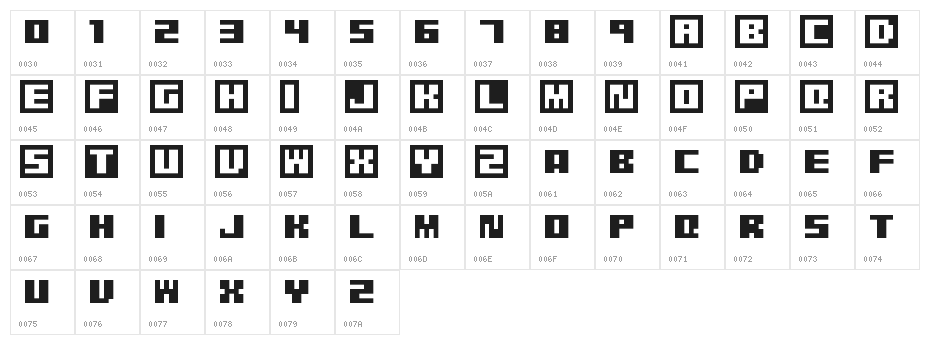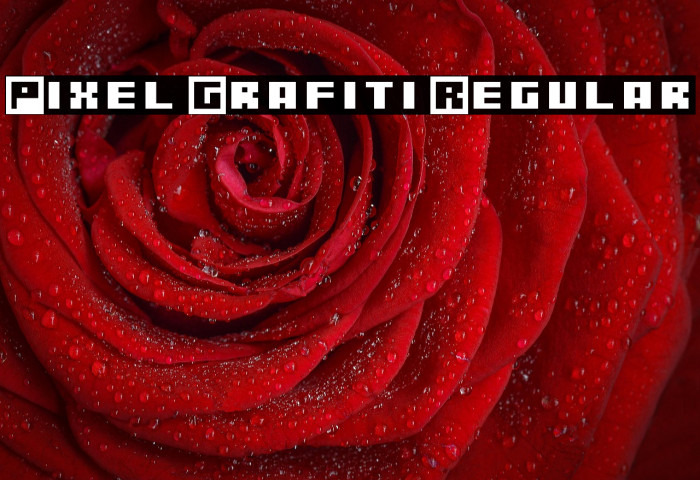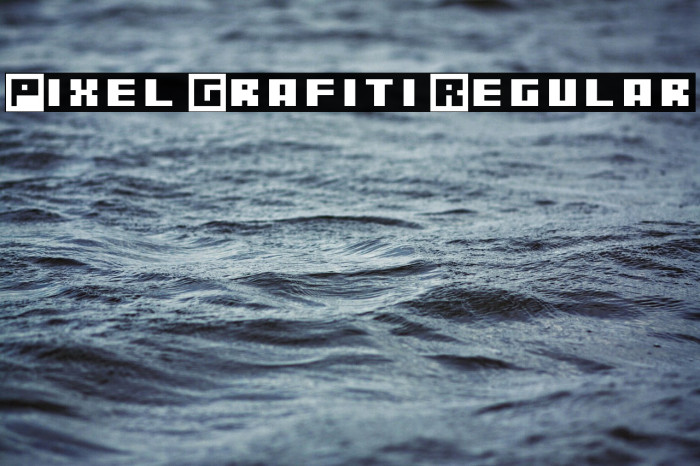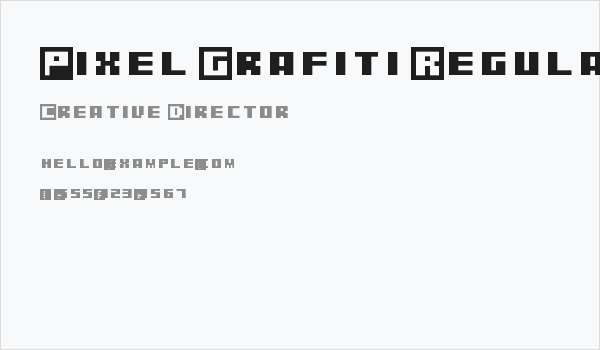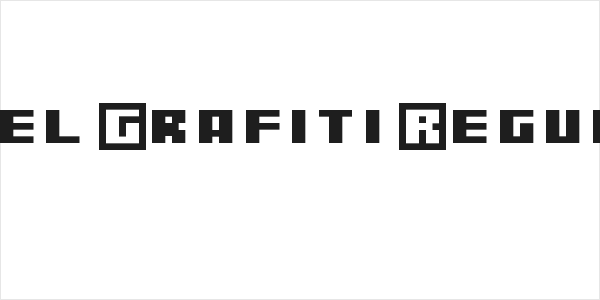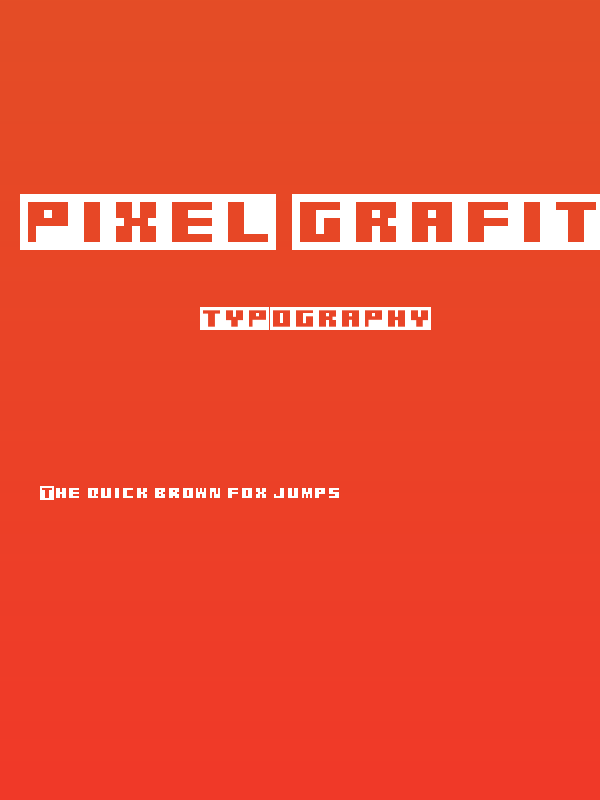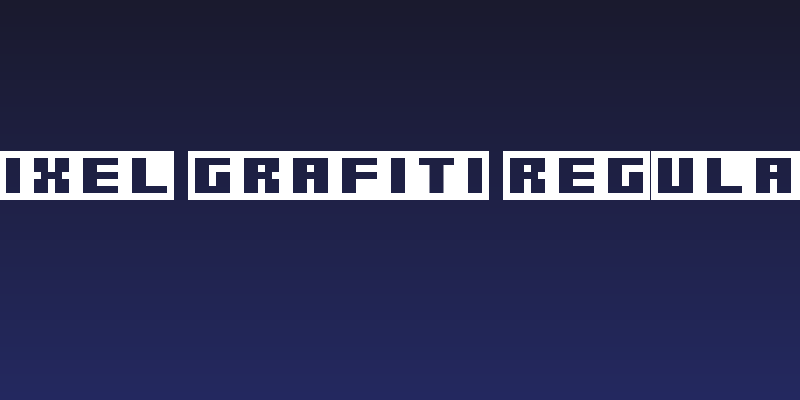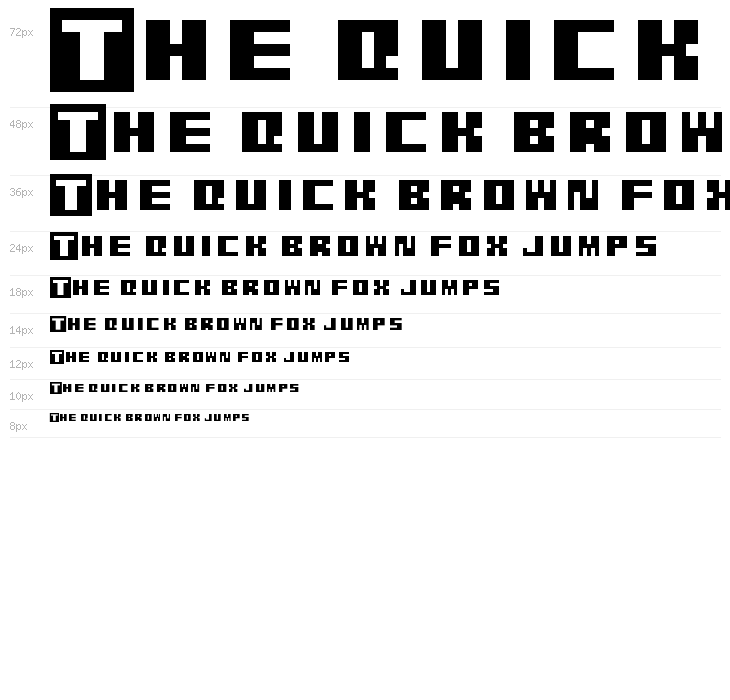
Pixel Grafiti Regular Font
Pixel Grafiti Regular Description
This font features a bold, pixelated design reminiscent of retro video games and digital displays. Each character is constructed with a blocky, square-like appearance, emphasizing a geometric and structured aesthetic. The uppercase and lowercase letters maintain a consistent height, contributing to a uniform look across the typeface. Numbers and special characters follow the same pixelated style, ensuring cohesion throughout. The font's distinct style makes it ideal for projects that require a digital or nostalgic touch, such as video game graphics, tech-themed posters, or any creative work that seeks to evoke a sense of the early digital era.
Overall StyleRetro, Digital
Use CaseHeadlines, Logos, Display text
Proposed ProjectsVideo game graphics, tech-themed posters, digital art, retro designs.